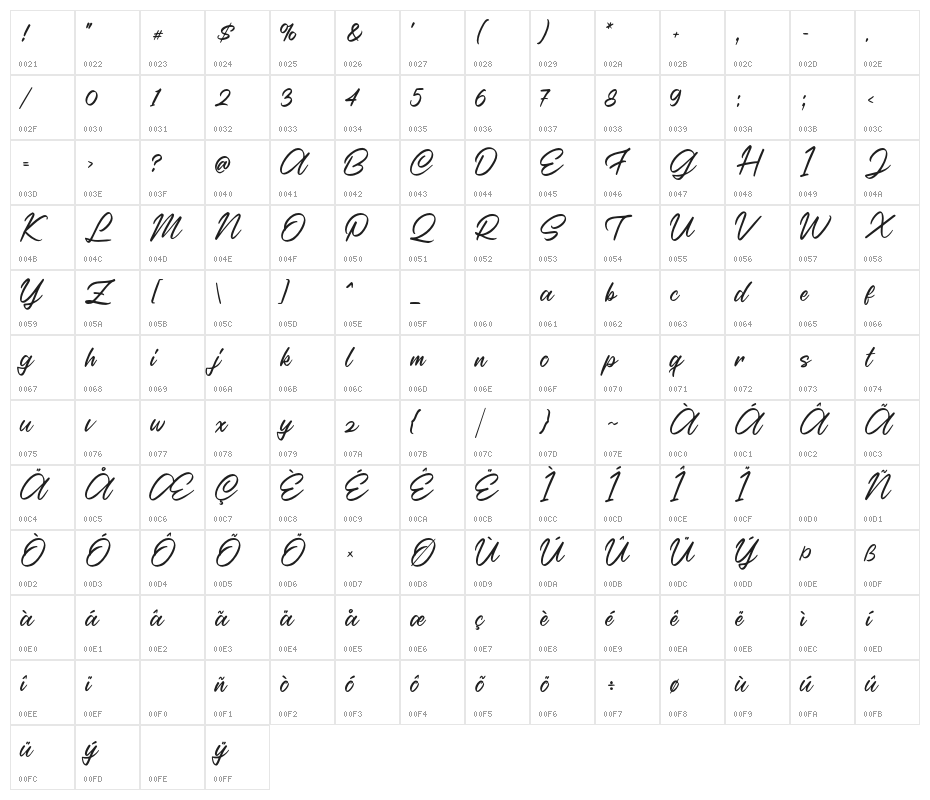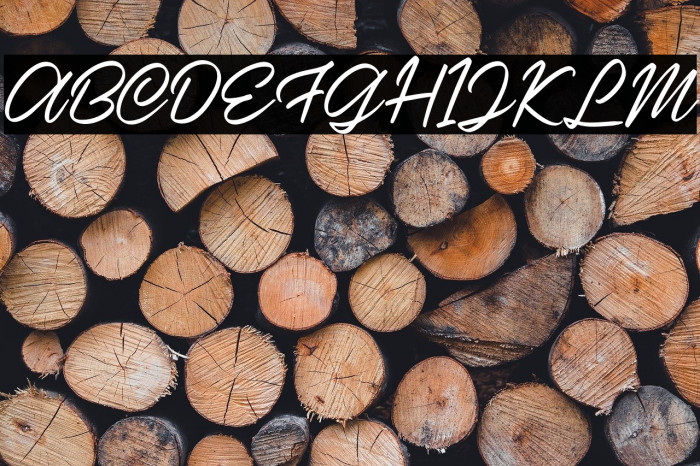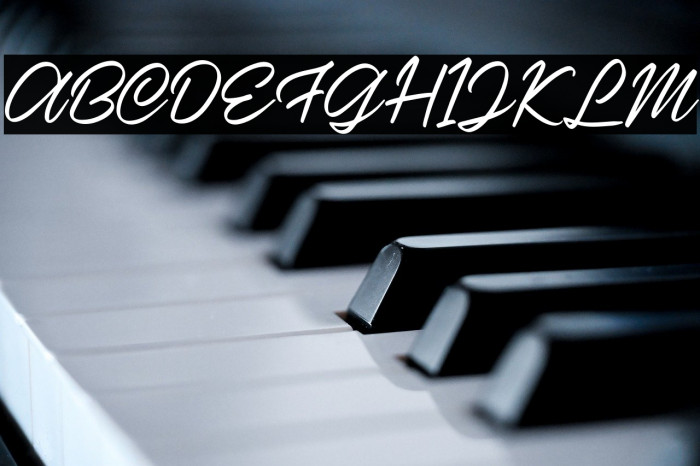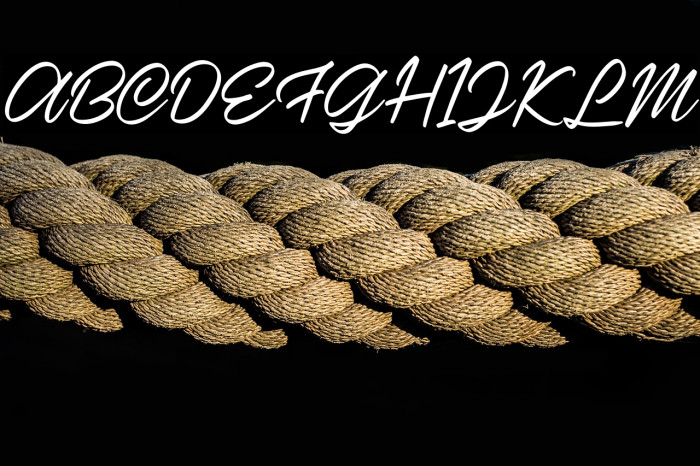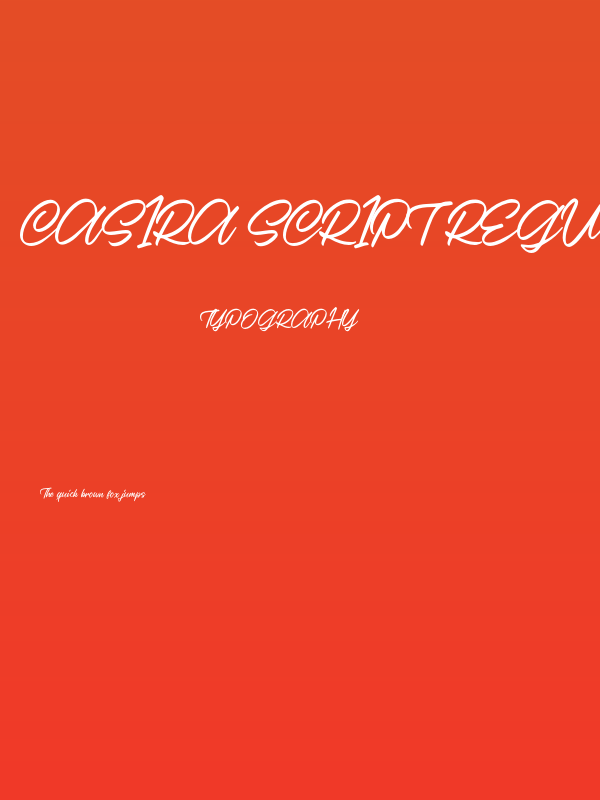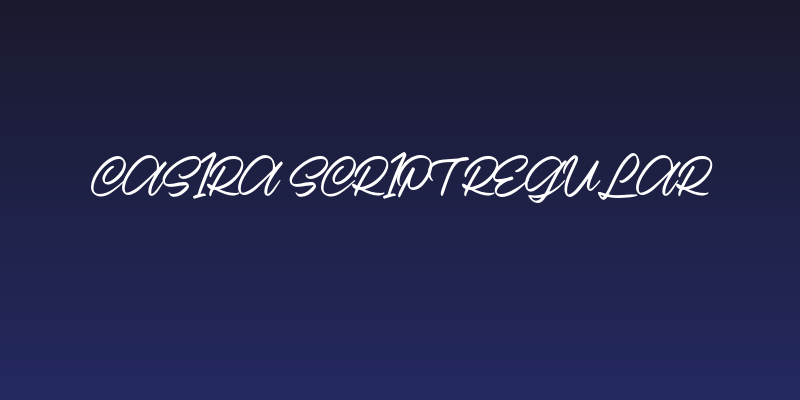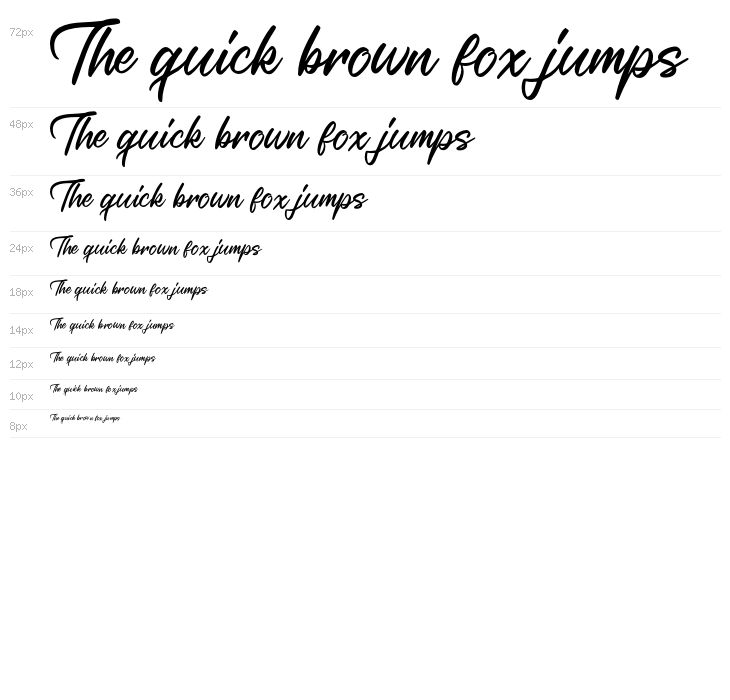
Casira Script Regular Font
Casira Script Regular Description
This elegant script font features fluid, connected strokes that mimic the natural flow of handwriting. Each letter is crafted with a graceful curve, creating a harmonious and sophisticated appearance. The uppercase letters are bold and prominent, while the lowercase letters maintain a consistent flow, enhancing readability. The numerals and special characters are designed to complement the overall style, ensuring versatility across various applications. This font exudes a sense of elegance and charm, making it ideal for projects that require a personal touch.
| Overall Style | Elegant, Handwritten |
| Use Case | Logos, Invitations, Decorative text |
| Proposed Projects | Ideal for wedding invitations, greeting cards, branding, and elegant signage. |